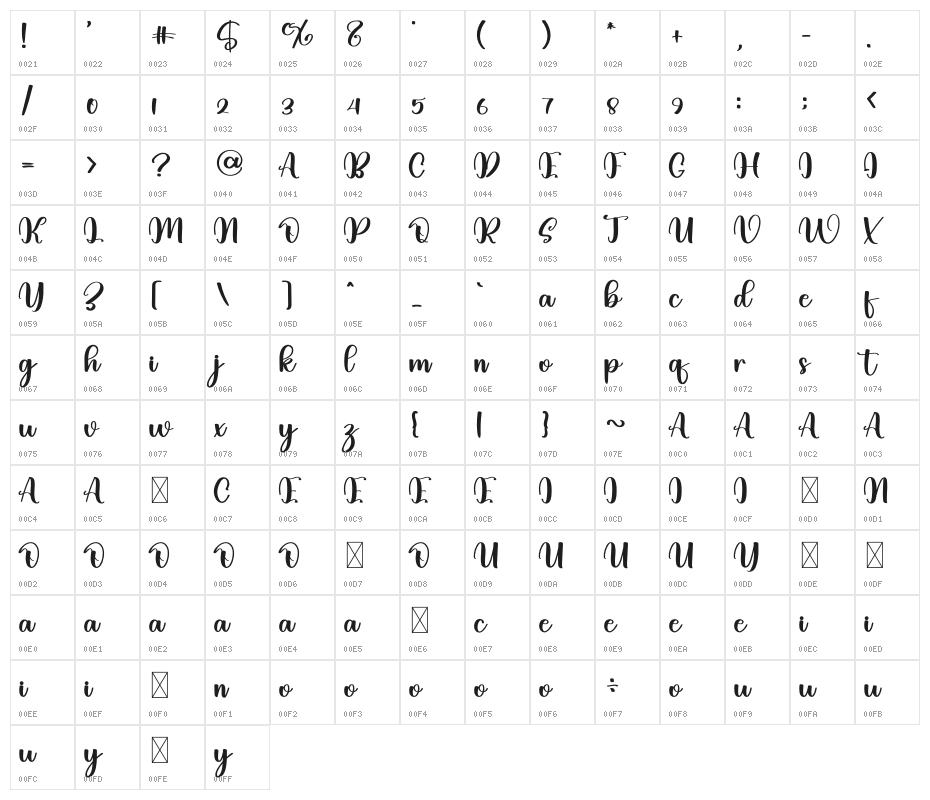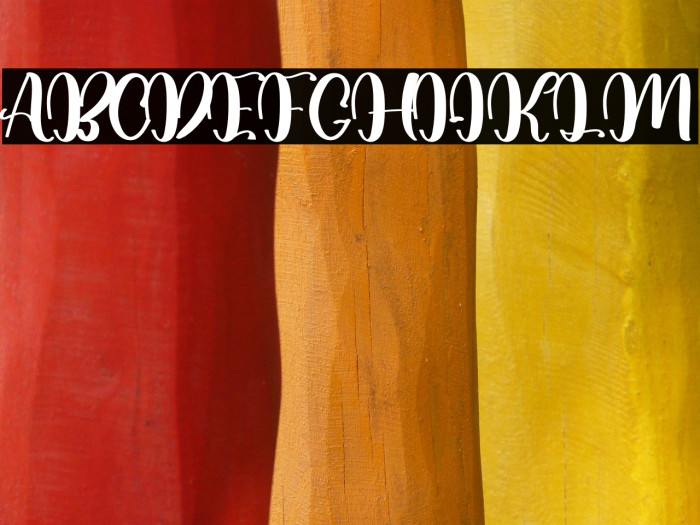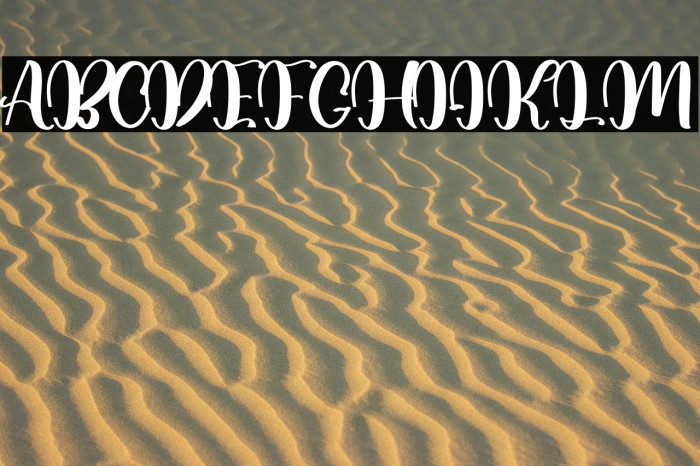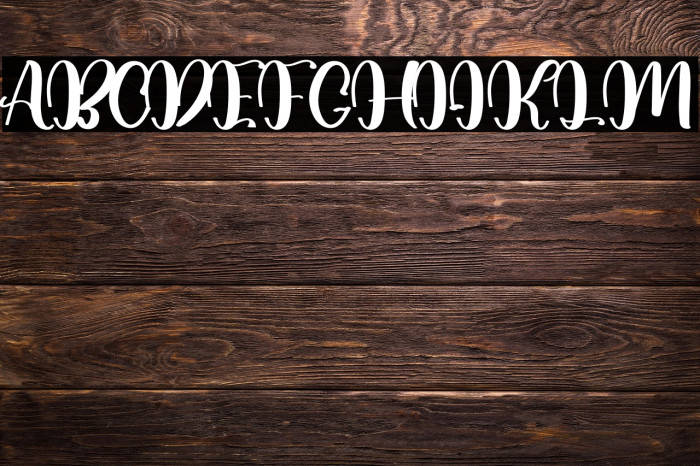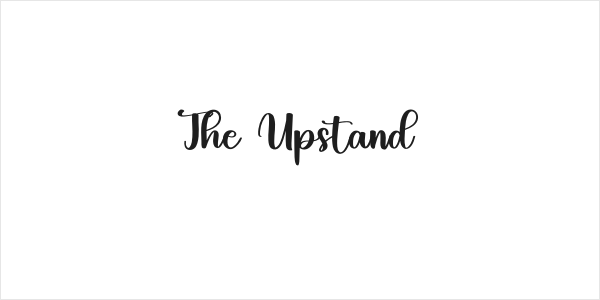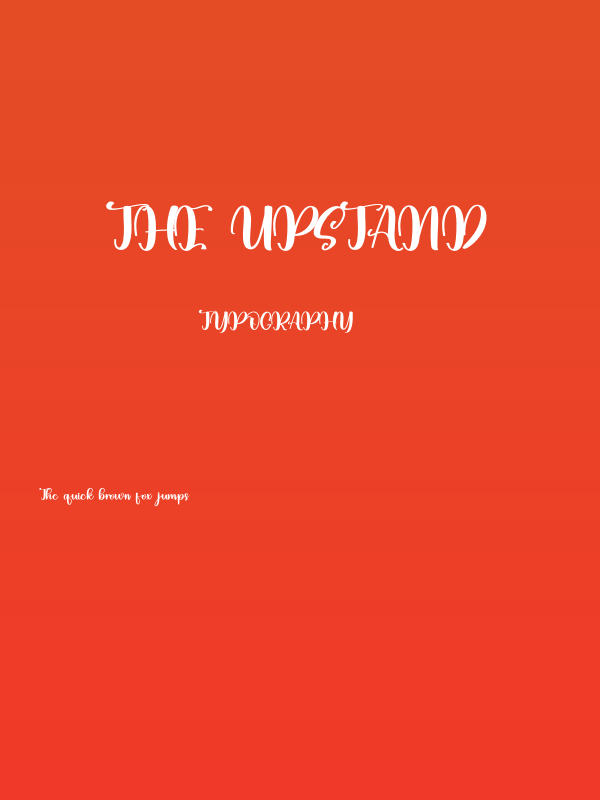
The Upstand Font
The Upstand Description
This font exhibits a bold and flowing script style, characterized by its elegant and cursive letterforms. The uppercase letters are ornate with sweeping curves and flourishes, giving a sense of movement and grace. The lowercase letters maintain a consistent flow, with some letters featuring loops and swashes that enhance the overall decorative appearance. The numerals are styled to match the script, with a playful yet sophisticated look. Special characters are integrated seamlessly, maintaining the font's cohesive aesthetic. This font is ideal for projects that require a touch of elegance and personality.
| Proposed Projects | Ideal for wedding invitations, greeting cards, branding, and logo design where a personal and elegant touch is desired. |